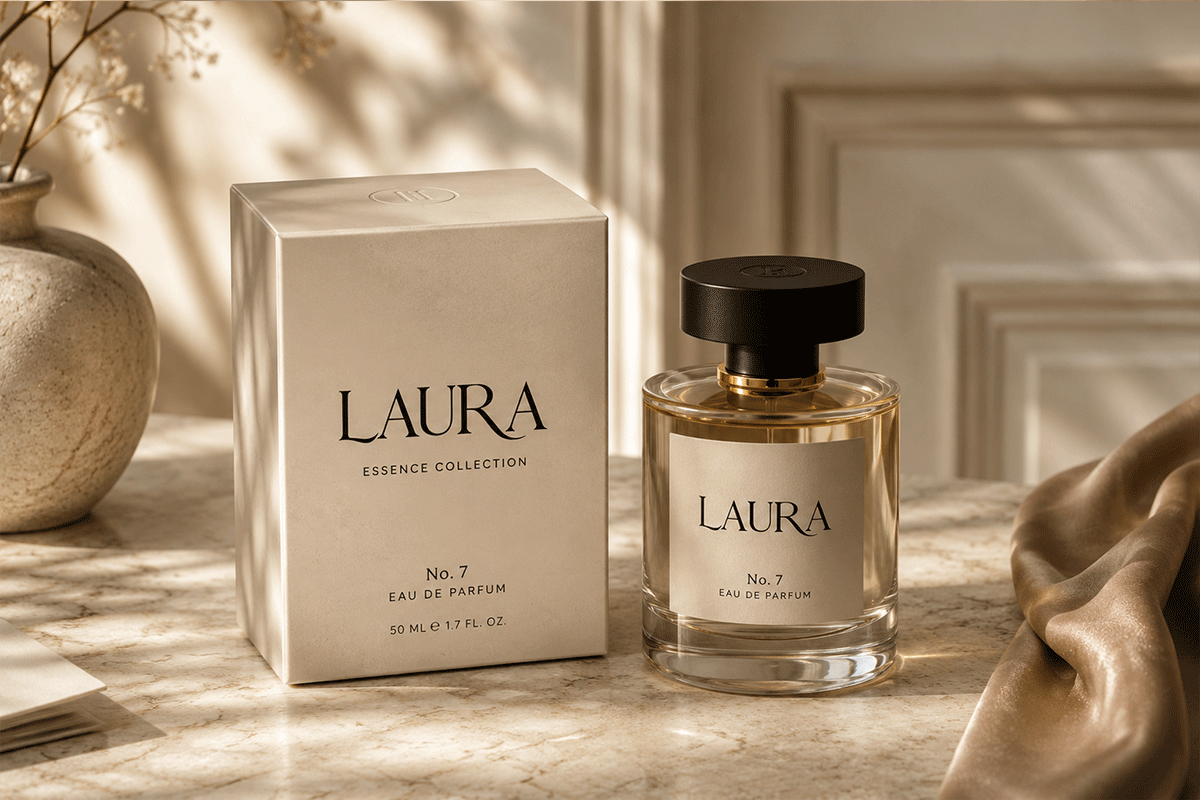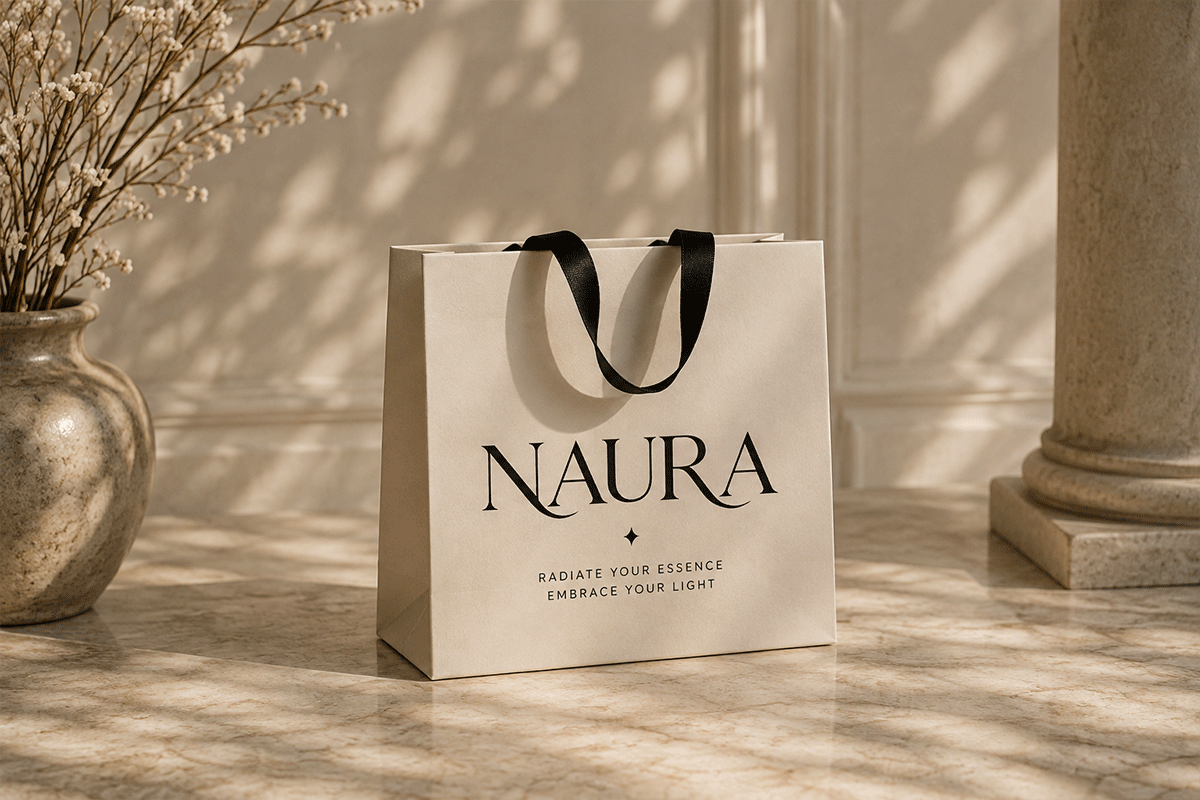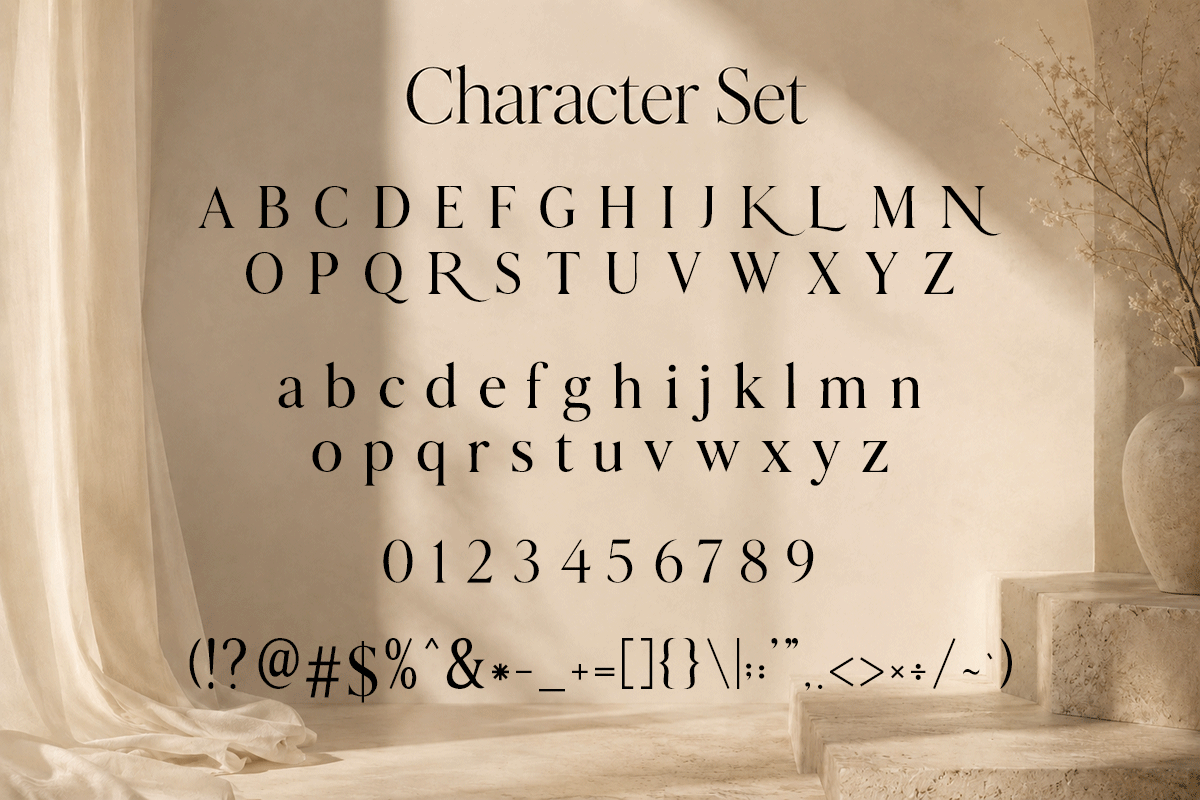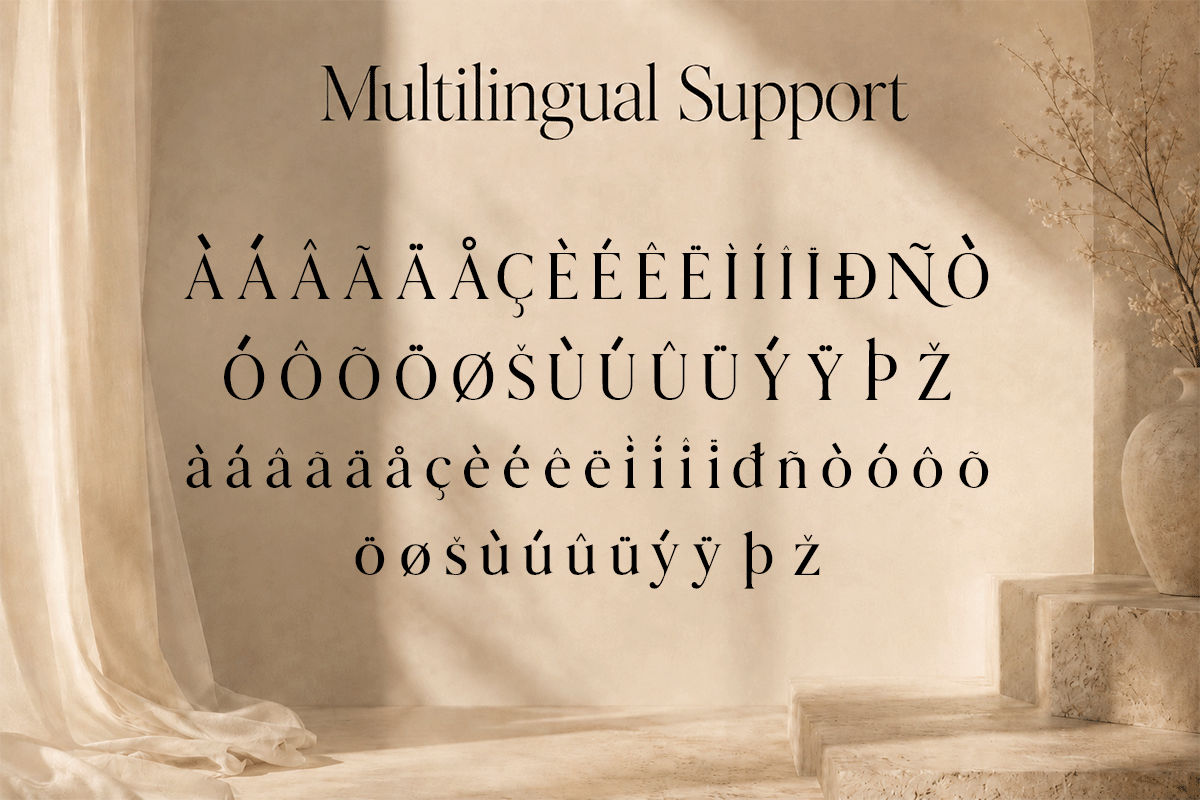
Lumiere A Modern Luxury Serif Font is a sophisticated modern serif typeface created to bring elegance, refinement, and timeless beauty to your designs. Featuring graceful curves, high-contrast strokes, and stylish letterforms, this font combines classic serif influences with a clean contemporary aesthetic.
Its luxurious and editorial character makes Lumiere A Modern Luxury Serif Font an excellent choice for projects that need a premium, feminine, artistic, or minimalist appearance. The distinctive details and elegant proportions help create a strong visual identity while maintaining a refined and professional feel. Our collection of Espot & Futuristic fonts is compatible to use as Figma fonts, Canva fonts, Freepik Fonts, and Adobe Fonts]. They also work as Windows Fonts, and Apple Fonts. For your social media needs, you can use and install fonts in our collection of Espot & Futuristic fonts to use as Instagram Fonts, Facebook Fonts, and Twitter Fonts.For our customers, we provide a collection of The Best display & E-sport Futuristic StyleFonts, each with its own unique styles and characteristics, so that our customers can create any design they want. We know what our clients love! That is why we prepare everything you may need in one simple downloadable package for you. Our easy-to-grab package contains all of the files you will ever need to create beautiful typography!